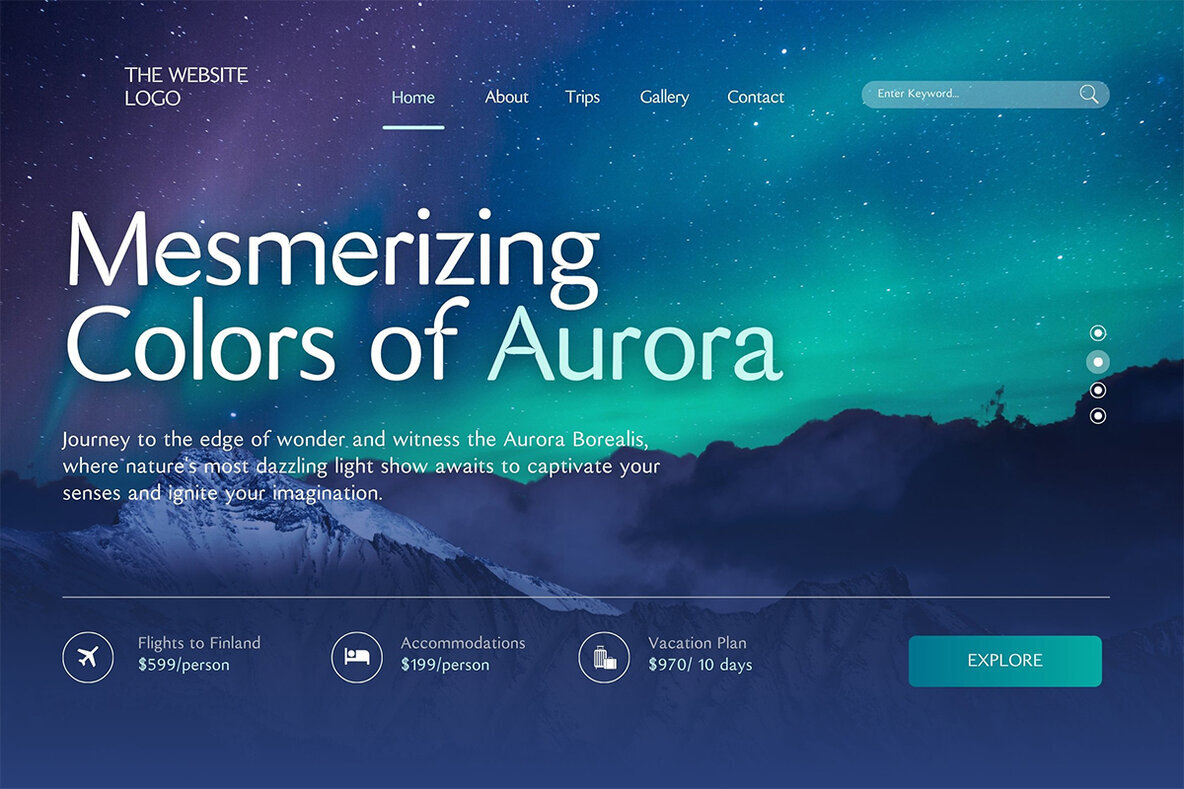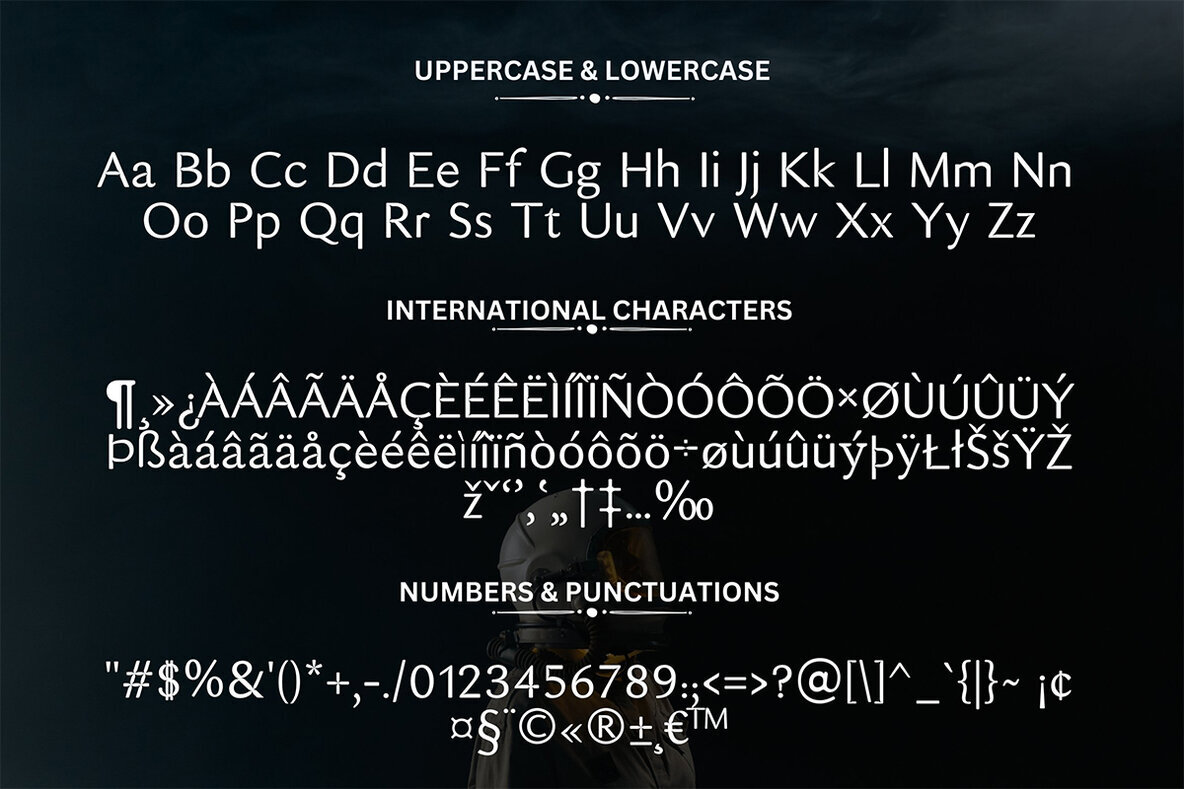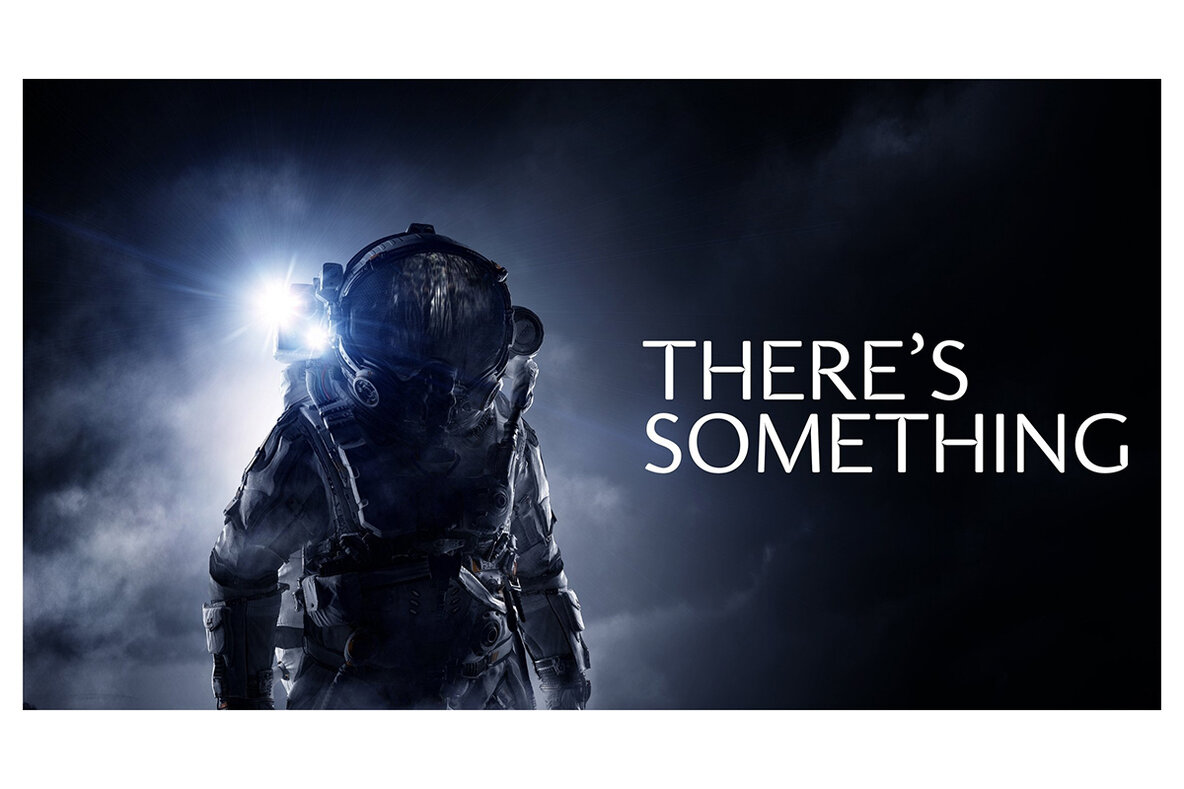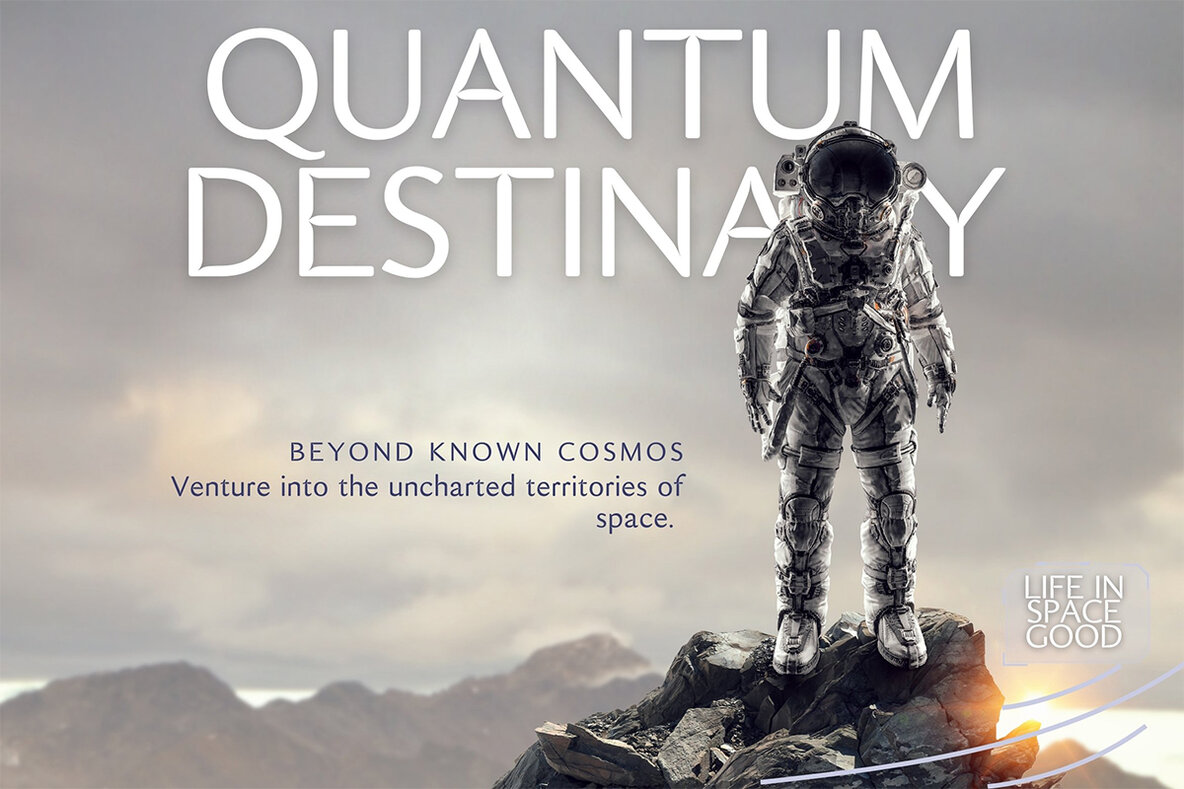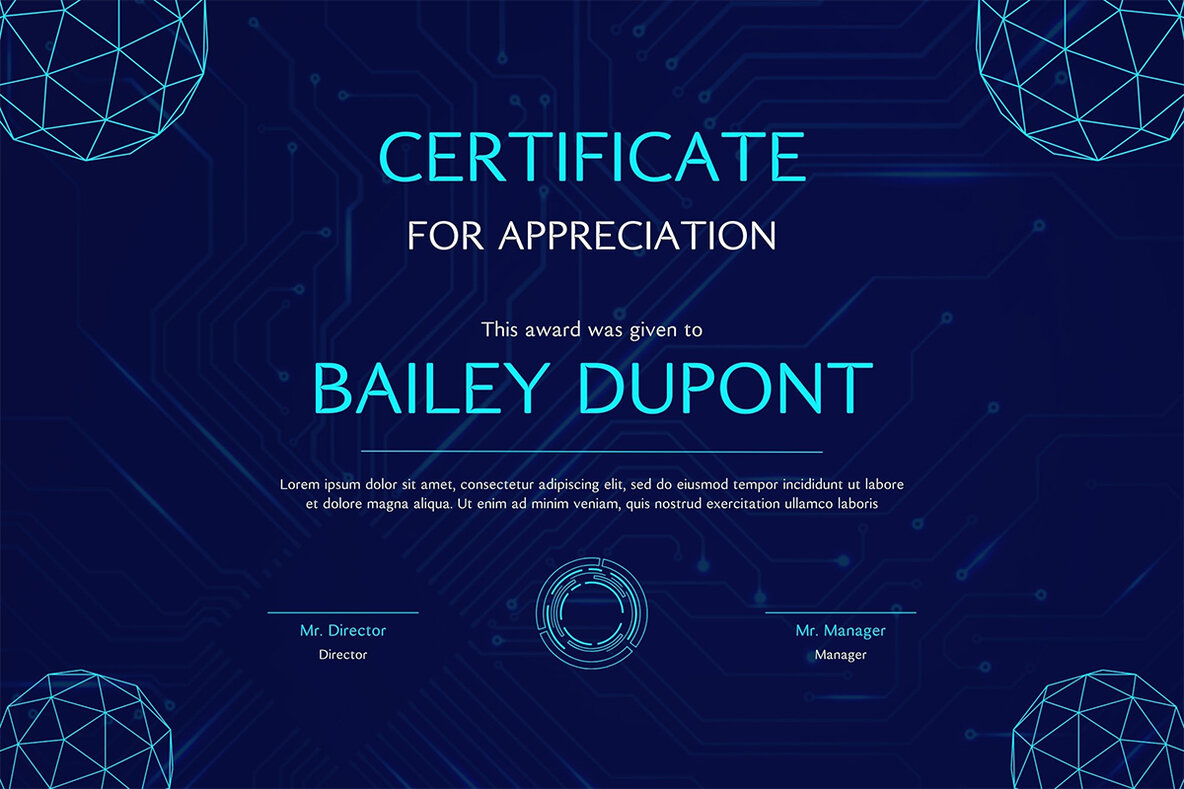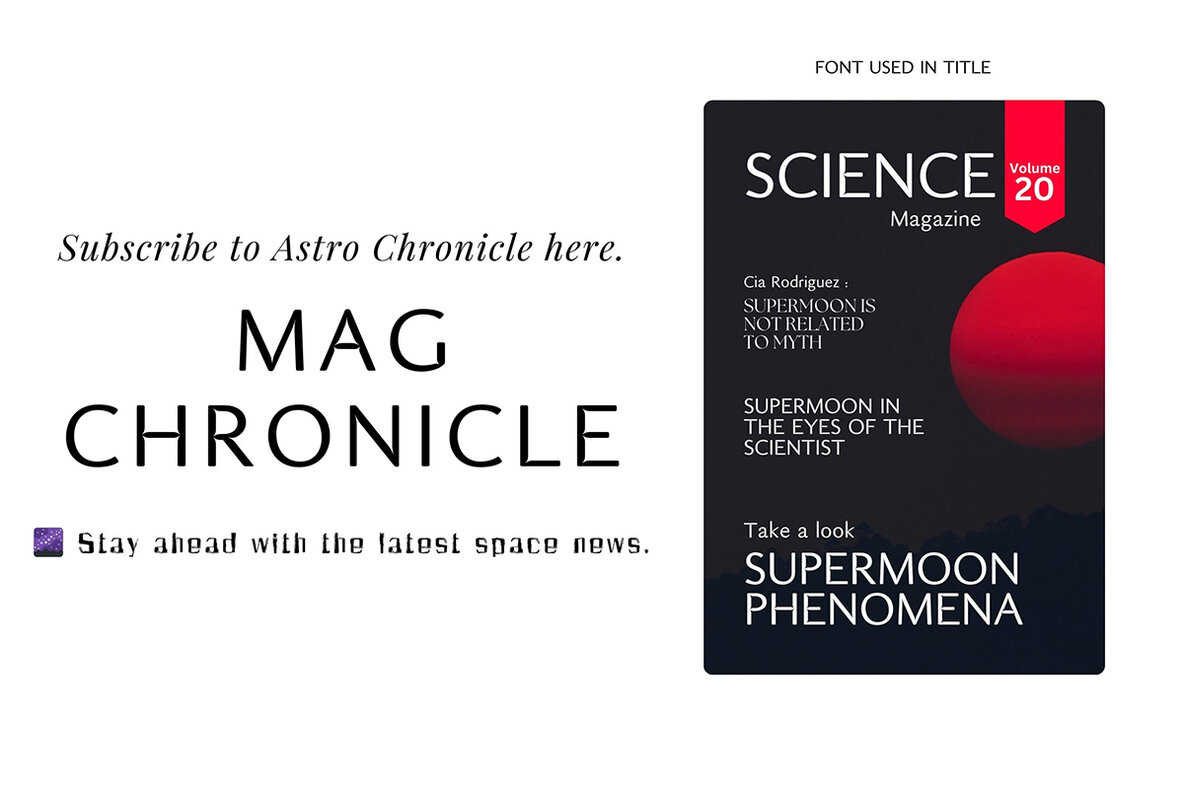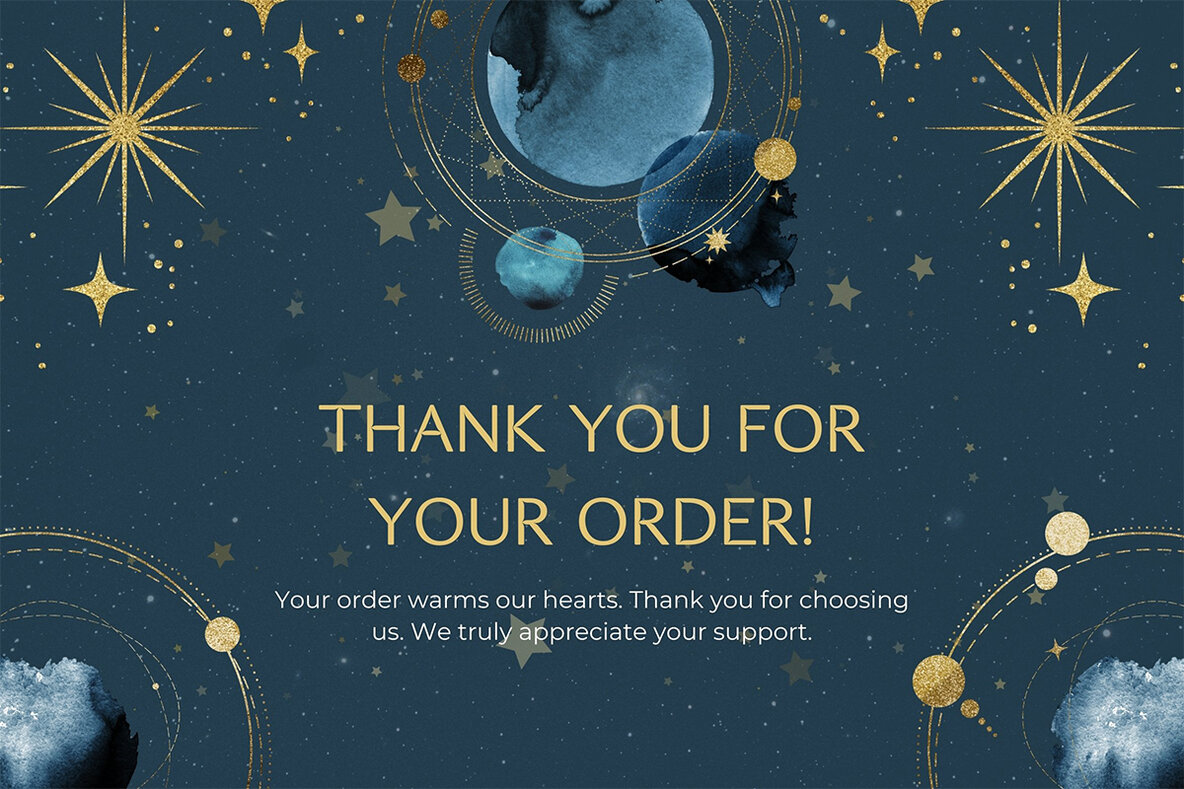
Yetro Futuristic Font
Yetro Font Regular
The Yetro Futuristic Sans Serif Font is a sleek, minimalist typeface ideal for projects needing a modern and sci-fi-inspired touch. Its clean lines and contemporary design make it perfect for a variety of creative tasks, including packaging, presentations, logos, headlines, posters, branding, quotes, magazines, web layouts, advertising, invitations, and book designs. This versatile font effortlessly enhances various applications, ensuring a cohesive and striking visual impact.
Key features of the Yetro font include uppercase and lowercase letters, numerals, and a comprehensive set of symbols. It also supports a wide range of international characters, making it suitable for multilingual projects. Whether you’re designing for print or digital, the Yetro Futuristic Sans Serif Font provides the necessary tools to create compelling and visually stunning designs.